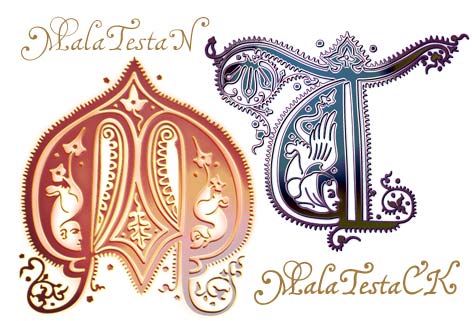
The MalaTesta fonts are based on a writing sample, titled "Lettere piacevolle", and dating from the 16th century. I copied it out of a book from the library, years ago, but forgot to include the caption, and kept no notes concerning the source. After turning it into a font, I had to search the Net for information ... and I found it! Doing a search for that queer title led me to a Google book, by Lewis F. Day, on Penmanship of the 16th, 17th, and 18th century, which is displaying my writing sample (among lots of others), and stating that it was taken from A booke containing divers sortes of hands, published by J. de Beauchesne and J. Baildon, in 1571. Apparently, Beauchesne/Baildon didn't name the writing master who created this "rather fantastic italic hand" (BTW, that precious Google book, which is downloadable as a free PDF, even contains two samples of Francisco Lucas' penmanship This is essentially one font that comes in two weights. I called them MalaTestaCK and MalaTestaN, because ck and n are the consonants that distinguish the words 'thick' and 'thin'. However, it is likely this denomination will not last. By next update, both fonts may be assembled into one family. As to the name MalaTesta, I sincerely hope you'll never find out why I think it's self-explaining... ... for, sorry to say, these fonts can get quite messy. All of those curls, and hooks, and swashes, which may produce rather pretty effects in the right places, will get horribly entangled in the wrong ones. I did a lot of kerning, but, I fear, not nearly enough, and then there are still some odd combinations of characters, where all the kerning in the world will not help. So, the use of alternate characters, in these fonts, should not be avoided. They have been designed, not to make the font look more elaborate, but to simplify things. Let me implore you to at least use the bar or broken bar sign, whenever you want to type a Th in one of these fonts. On the number sign of the MalaTesta fonts, you'll find a long s, as usual. The other irregular characters are